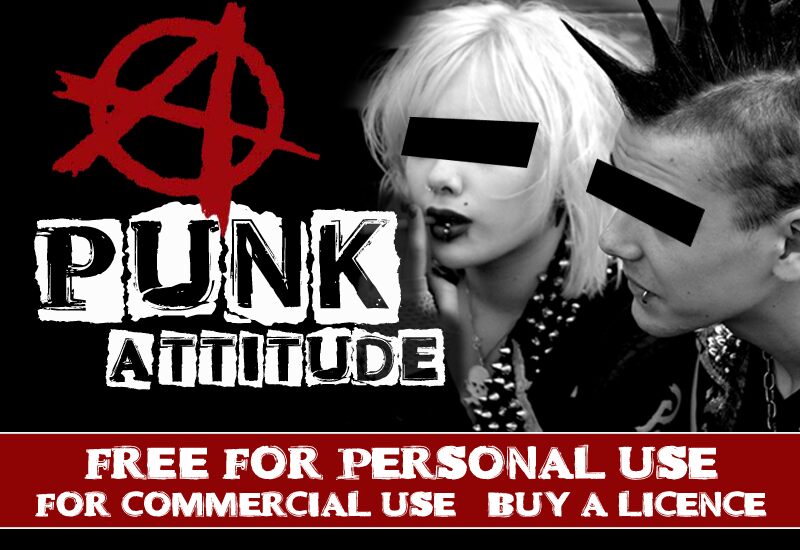
CF Punk Attitude by CloutierFontes is a free distorted display font with the rough force of photocopied punk lettering. Heavy capitals alternate between solid and reversed forms, with chipped edges and uneven rectangular backings. The mismatched widths and crude outlines give each letter a cut-and-paste quality.
A gig poster is its clearest home. The same abrasive construction suits record sleeves, skate merchandise, and underground event graphics. Across those uses, irregular blocks turn the wording into printed texture.
CF Punk Attitude Regular is a font by CloutierFontes, designed by Steve Cloutier in 2013.